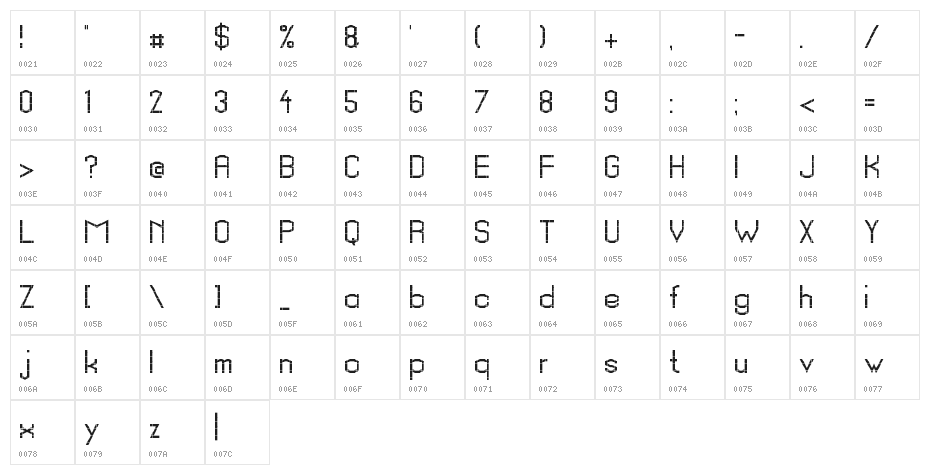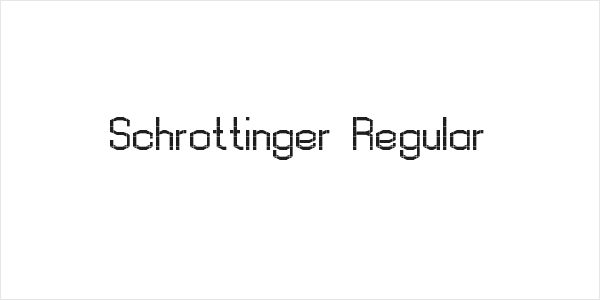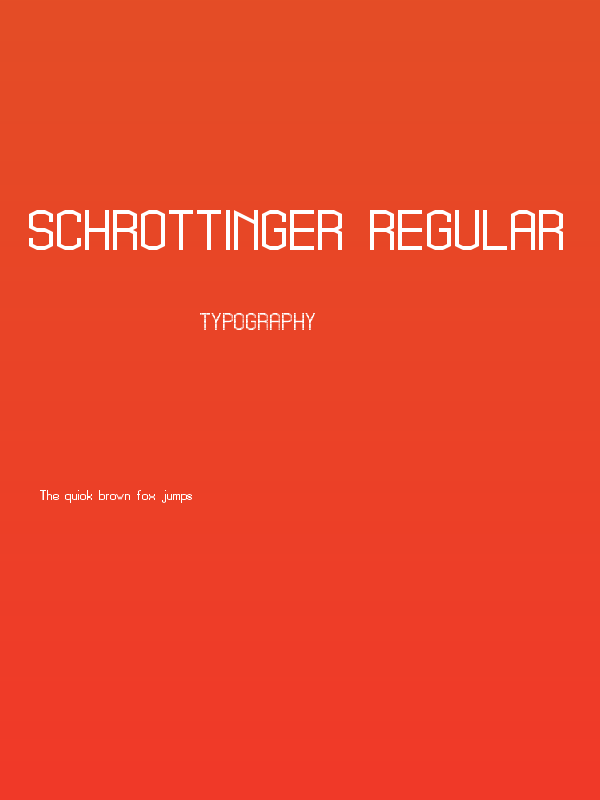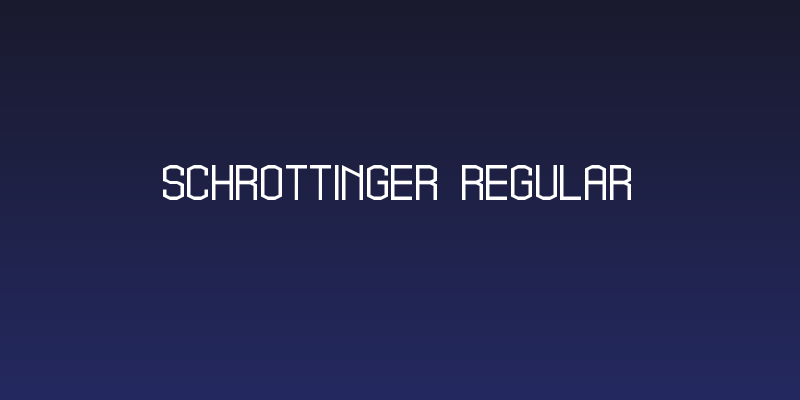
Schrottinger Regular Font
Schrottinger Regular Description
This font features a unique, geometric design with a digital, pixelated appearance. Each character is constructed with a series of straight lines and angles, creating a modern and tech-inspired look. The uppercase and lowercase letters maintain a consistent style, with sharp edges and a uniform structure. Numbers and special characters follow the same design principles, ensuring a cohesive visual identity. The font's distinct style makes it suitable for projects that require a futuristic or digital aesthetic.
| Proposed Projects | Ideal for digital art, tech branding, video game interfaces, and futuristic-themed designs. |